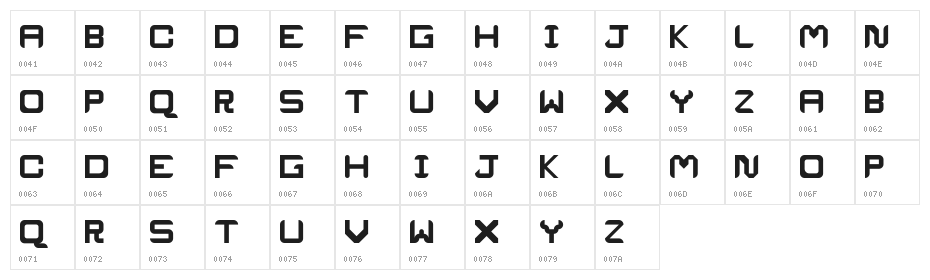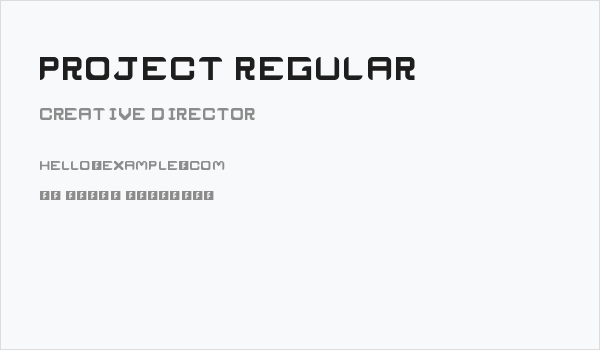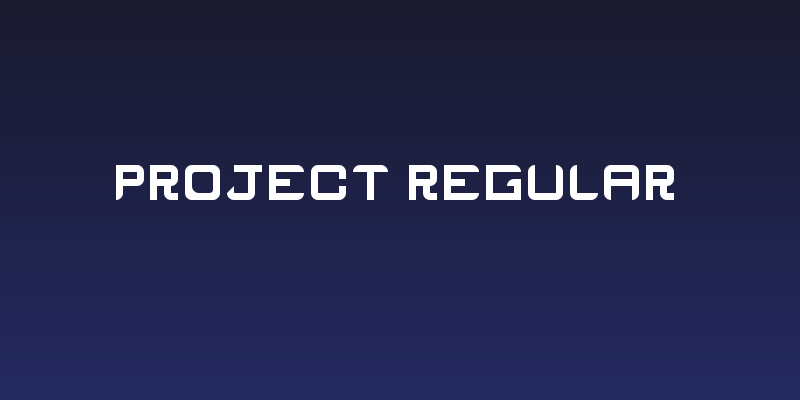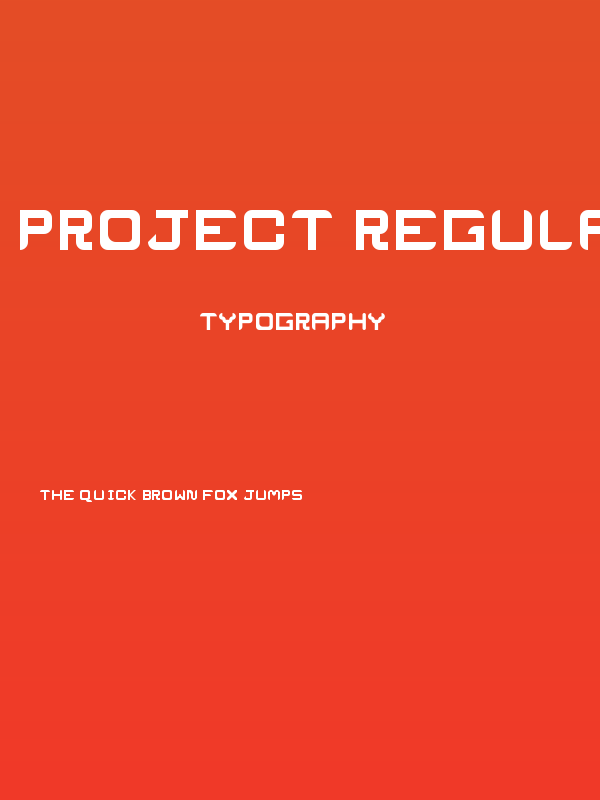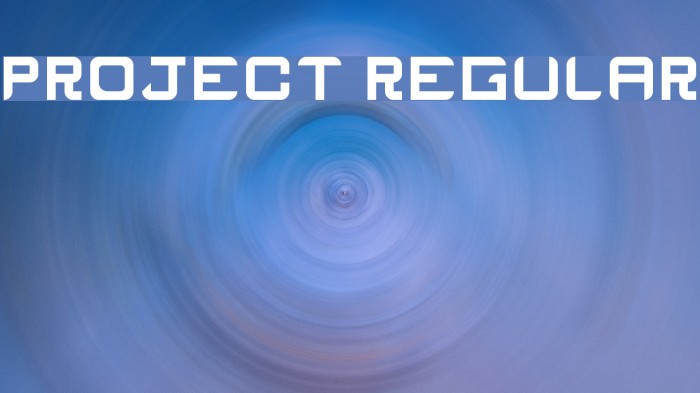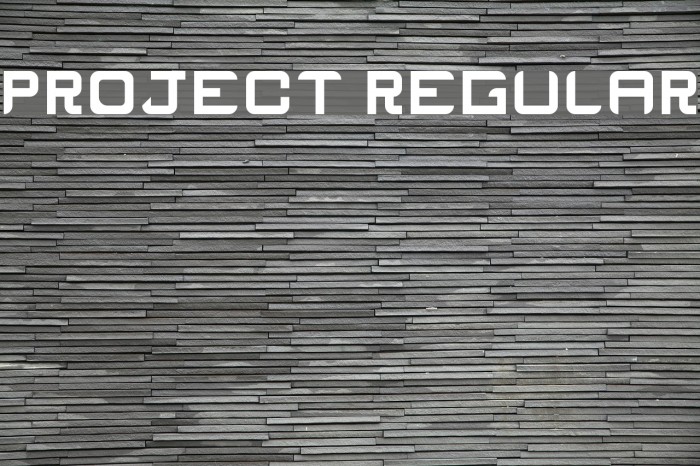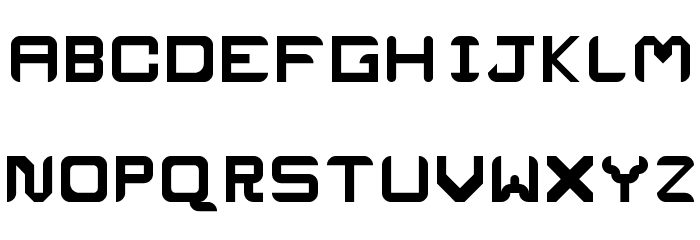
ProJecT Regular Font
ProJecT Regular Description
This font features a bold, geometric design with a modern and futuristic aesthetic. The characters are constructed with straight lines and sharp angles, giving them a mechanical and structured appearance. The uppercase letters are uniform in height, while the lowercase letters maintain a consistent style, enhancing readability. The numbers and special characters follow the same design principles, ensuring a cohesive look across all glyphs. The font's unique style makes it stand out, suitable for projects that require a strong visual impact.
| Proposed Projects | Ideal for technology branding, video game titles, sci-fi movie posters, and digital interfaces. |